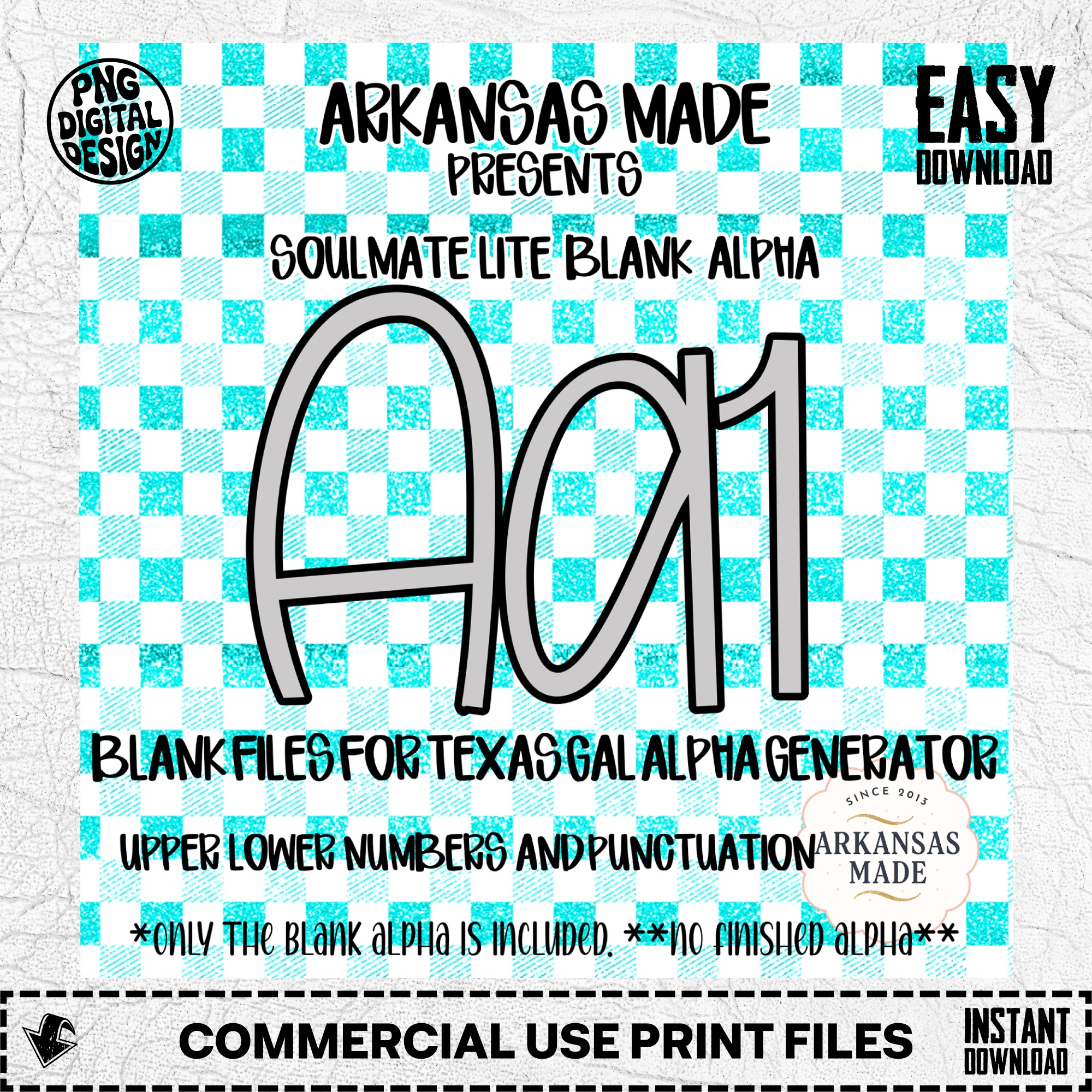
Unlock endless creativity with our Blank Fillable Alpha Sets, a digital download of outline letters, numbers, and punctuation, perfect for custom designs. These versatile blank alphabet templates are ideal for digital crafters, small business owners, and DIY enthusiasts. Easily personalize t-shirts, tumblers, decals, and more with your unique patterns, glitter, or colors. A fantastic resource for anyone creating custom gifts or personalized merchandise.